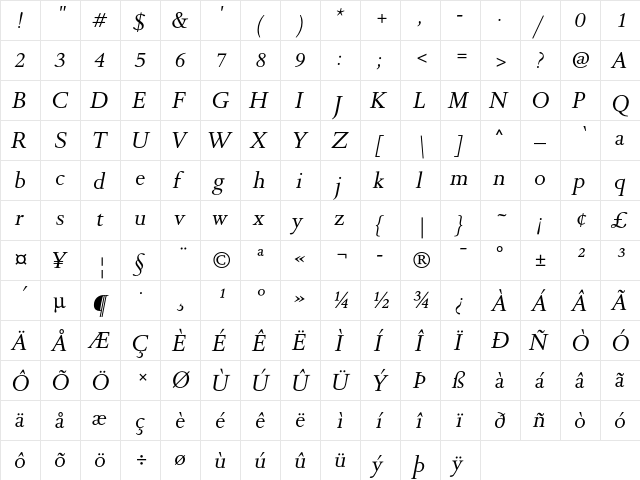
DTL Romulus T Italic
Design Context for DTL Romulus Typeface
DTL Romulus takes a measured approach to typography — its balanced proportions and neutral character make it a reliable workhorse for both digital and print work. The dynamic lean of this cut emphasises speed and emphasis in any layout.
Pro Tip: Try DTL Romulus for annotation and caption copy alongside an upright companion — the contrast in angle creates a dynamic but ordered typographic system.